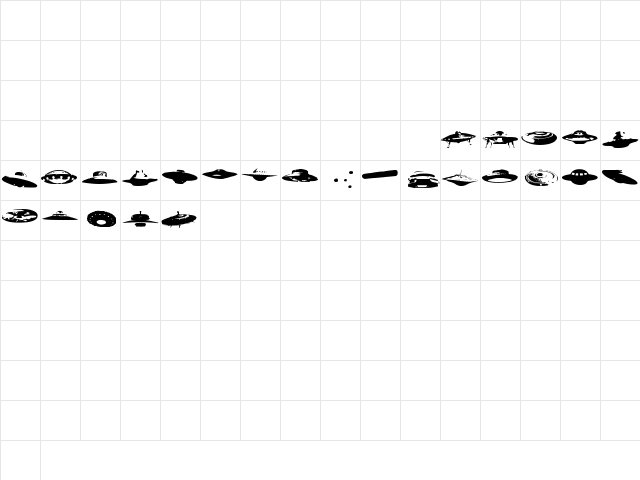
Ovnis Regular Free Font
Ovnis Regular
Designer: Carlos Matteoli
Design Context for Ovnis
Ovnis is a composed and adaptable typeface that performs quietly and consistently across a wide range of design contexts.